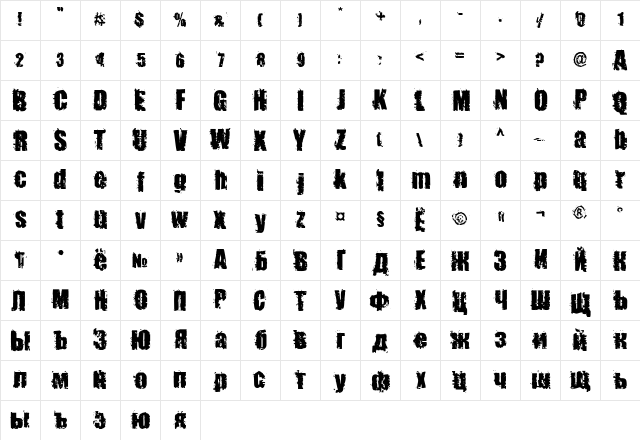
Beast Impacted Free Font
Beast Impacted Beast Impacted
Style: Beast Impacted
Complete Beast Impacted glyph index. Displaying only characters natively supported by Beast Impacted font.
Design Context for Beast Impacted
Beast Impacted brings high-energy athletic personality to the page - its confident, muscular forms are built for impact.
Pro Tip: Use Beast Impacted in all-caps headlines where its athletic energy can fully express itself. Pair with a solid, simple sans for supporting text.